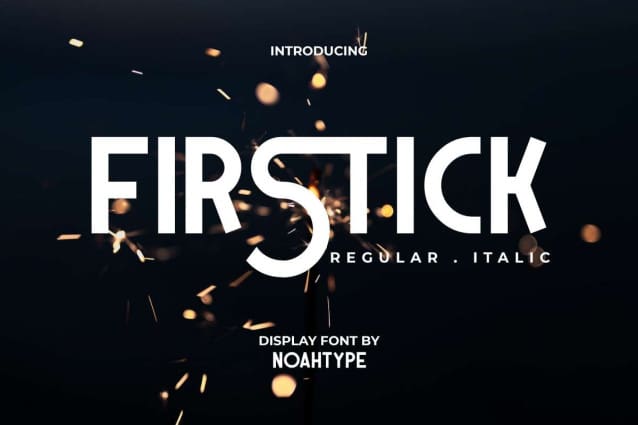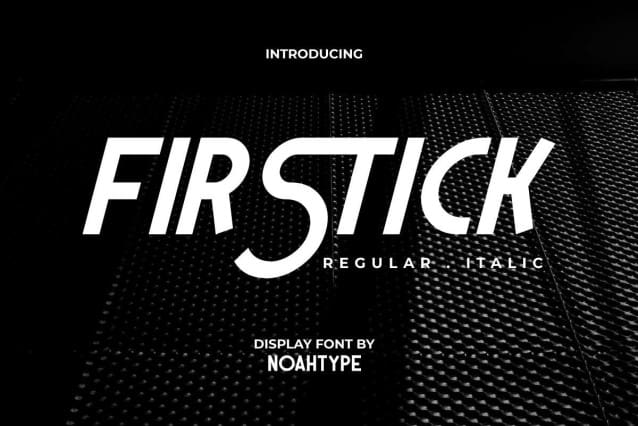
Firstick Font
Firstick Font is a modern racing and sports inspired sans serif display font by NoahType. This font has a casual type that still looks modern for the various designs you make with Regular and Italic styles. It will be good for any designs, such as signage, label, brand image, business card, catalog, cover, custom design, invitation, product packaging, quote, stationery, web, and more!
Firstick Font includes full set of Uppercase and Lowercase Basic Characters, Numerals and Punctuation, and Alternate. The characters of this font will give stylish looks and great choice for many industries, such as advertisement, fashion, perfume, café, event organizer, sport tools, printing, publishing, etc.